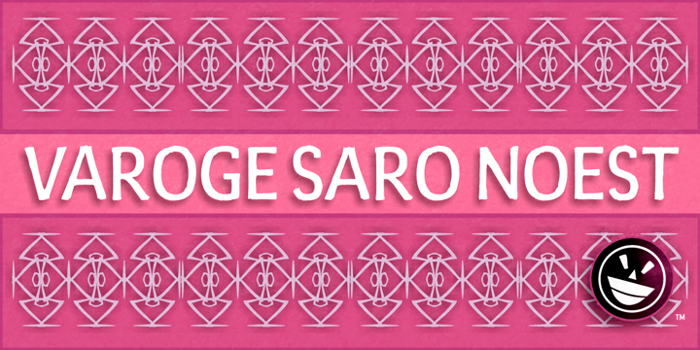
Varoge Saro Noest Font
The commercial version of VAROGE SARO NOEST arrives on your computer with lowercase characters, OpenType replacement features and extended language support for Central European, Greek, Cyrillic and Extended Cyrillic. We've even included some nice character options for our German-speaking customers with the uppercase Eszett. Also included is the new Turkish Lira.
VAROGE SARO NOEST is a font with a very funny name. Sometimes it can be a funny font. Or a font that is fun. It looks kinda casual, but also a little bit handwritten--freeform and freehand. Or a form of block lettering with a rough edge. Not too rough. Just enough to break up the visual rigidity. But this is not a face in distress. It's mostly at ease in its surroundings. If it's in text mode, it handles the job comfortably. In headline mode it does well too. It's quite flexible and looking for a home. Give this font a home. See if you can figure out what to use it for. See if you see what we saw when we made it. We saw a font that's cool and elegant with a bit of a tantrum driving the node count. We also found it's impossible to look away from it. Anyone can see that. That's why you're here. That's why you're reading this. And VAROGE will do you a favor if you let it. Revisit your typographic beliefs and head over to the one persistent constant in life: your font list. Is VAROGE SARO NOEST on it? If it were to set up headquarters there, you might discover something ideal. That's the favor I was promising.